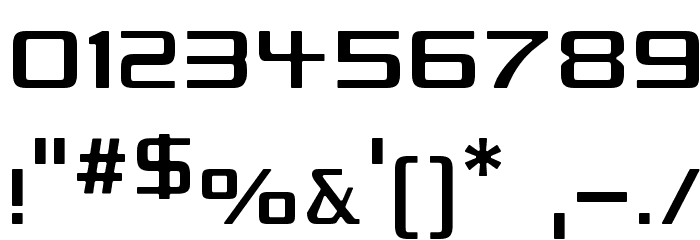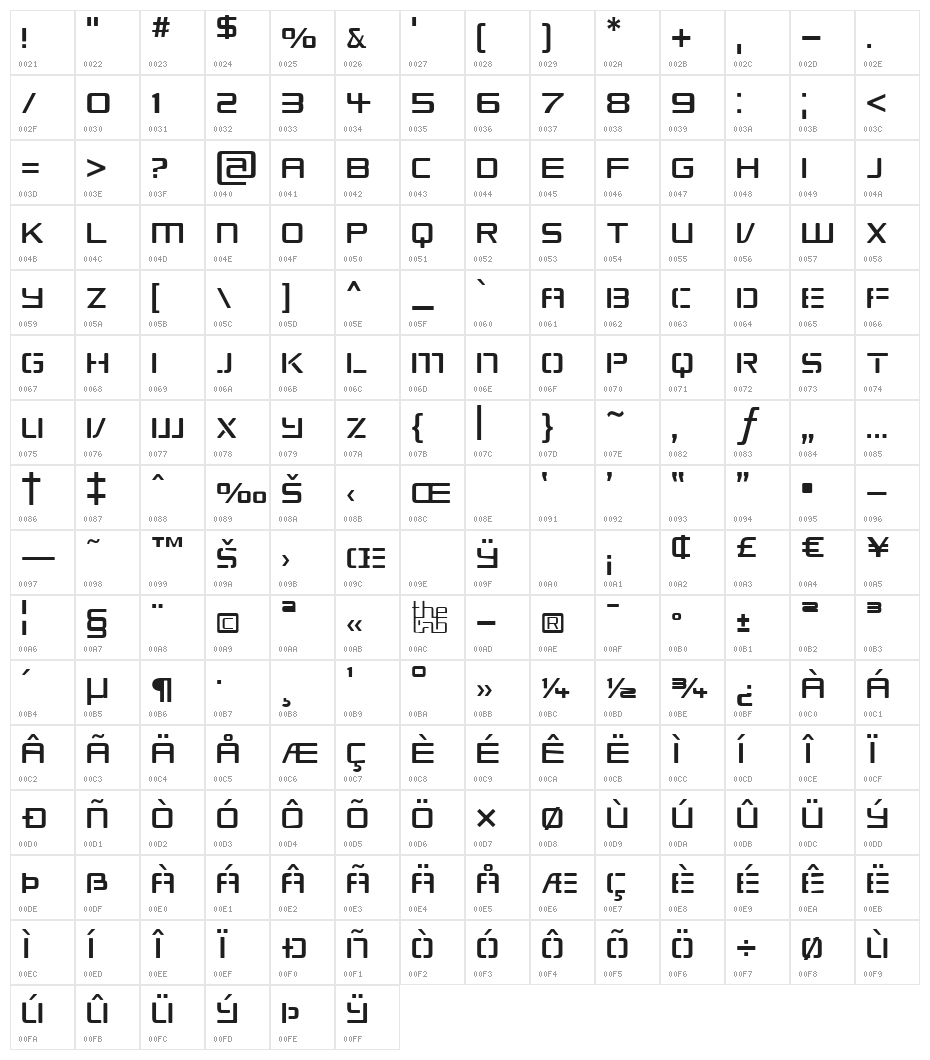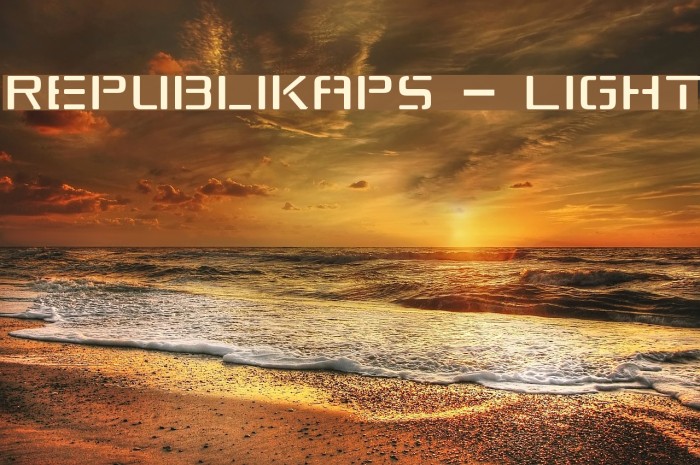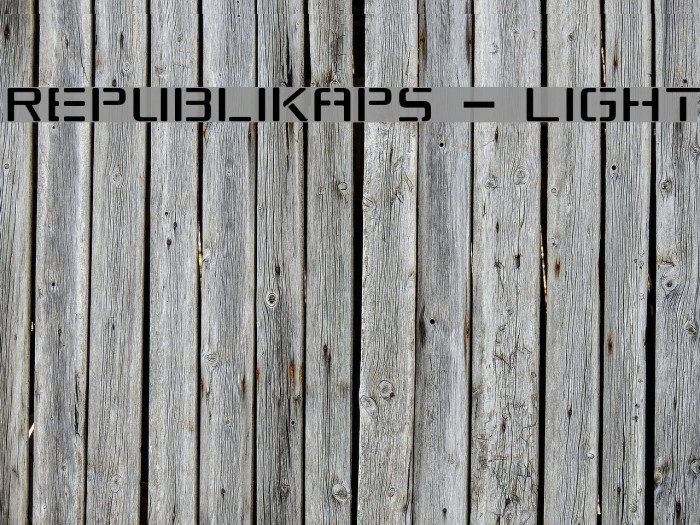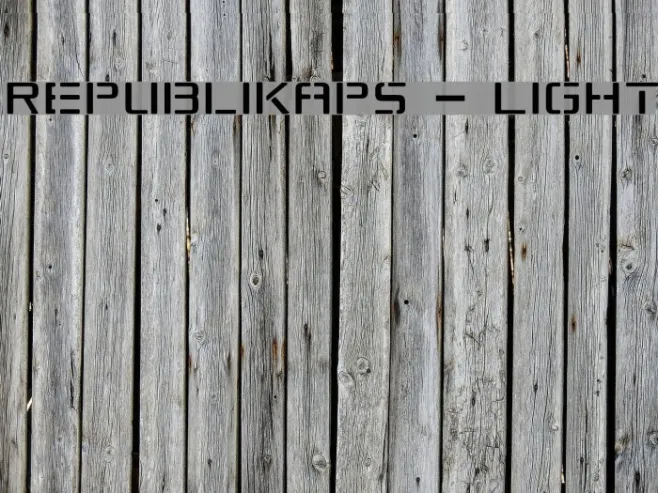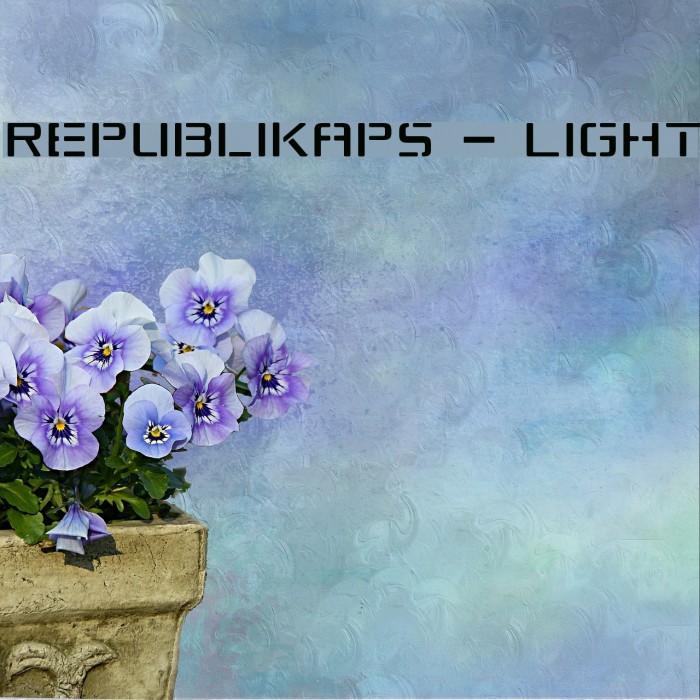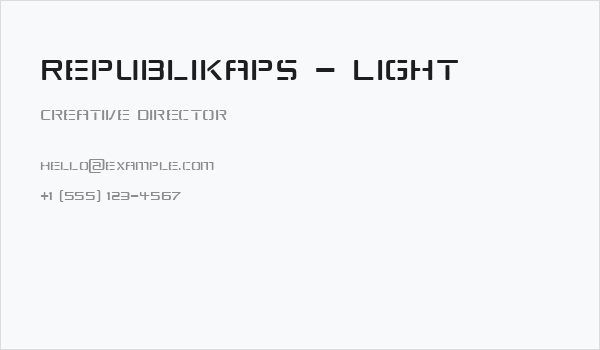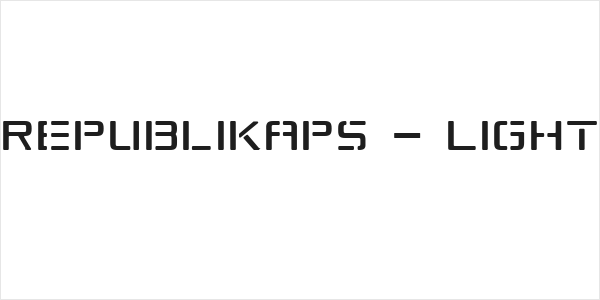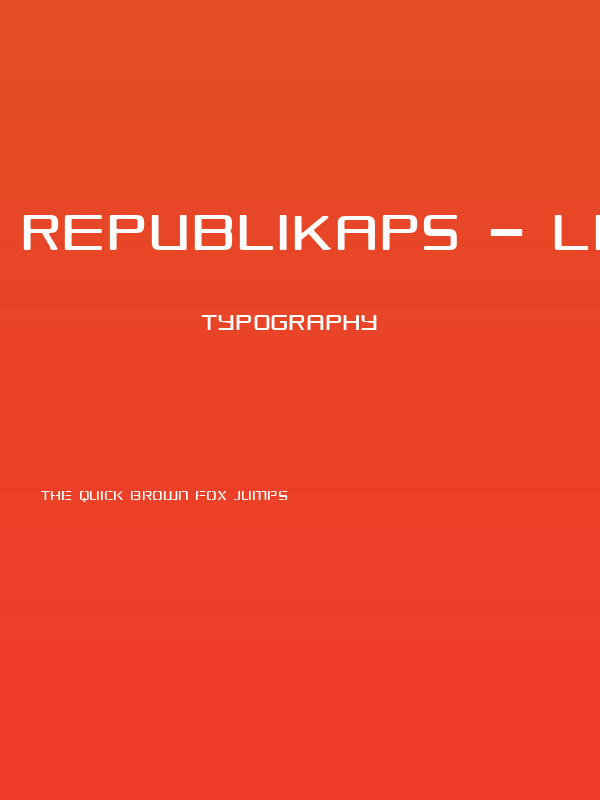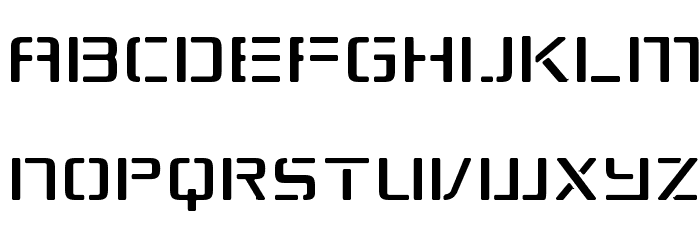
Republikaps - Light Font
Republikaps - Light Description
This font presents a modern and sleek design with a geometric structure. The characters are uniform and consistent, featuring rounded edges that soften the overall appearance. The uppercase and lowercase letters maintain a similar width, contributing to a harmonious and balanced look. The numerals are clear and easily distinguishable, while the special characters are crafted with precision, ensuring readability. The font's style is versatile, suitable for both digital and print media, offering a contemporary aesthetic that can enhance various design projects.
Use CaseHeadlines, Body text, Logos
Proposed ProjectsIdeal for branding, digital interfaces, posters, and editorial design.